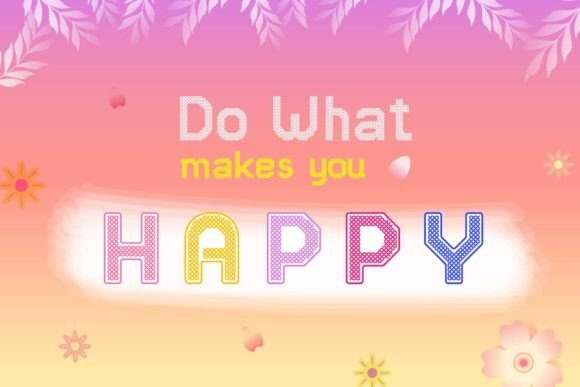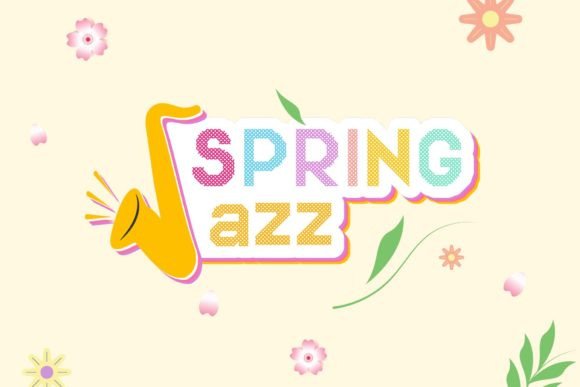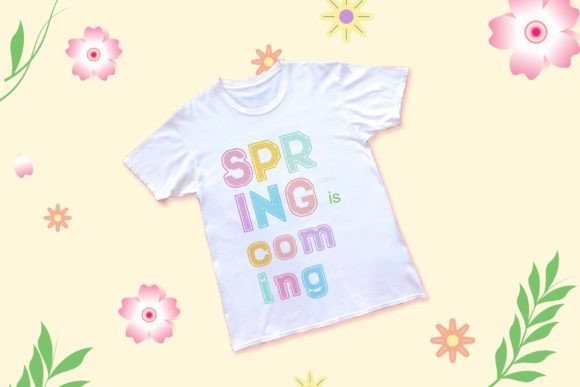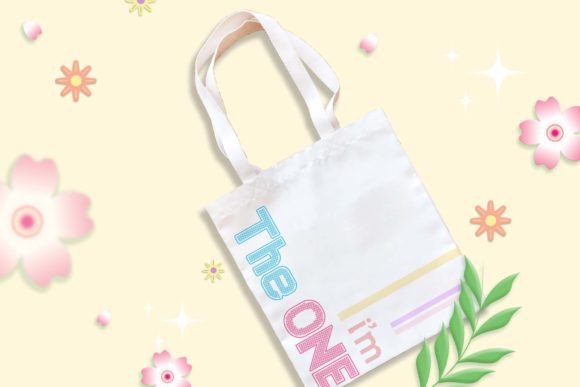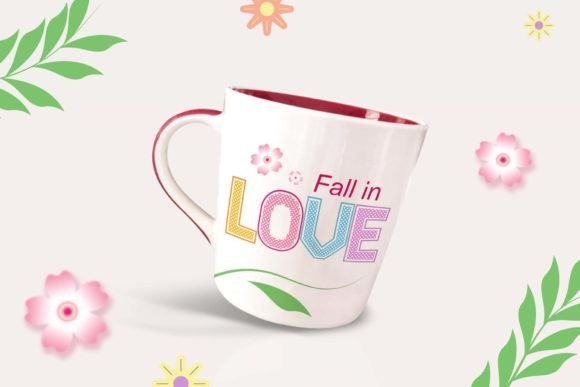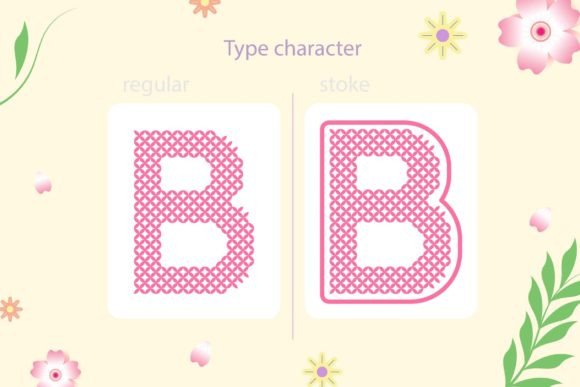
The Florala Font: A Lovely Touch for Your Designs
I’ll never forget the time I was working on a spring-themed craft project, and I just couldn’t find the right font to match my design. I wanted something that would add a touch of whimsy and playfulness, but still be elegant and refined. That’s when I stumbled upon the Florala font, and it instantly became my go-to choice. In this article, I’ll share my experience with this beautiful font, and show you how to make the most of its features.
An Honest Review of Florala Font
- ✨ The Florala font is a regular and stroke lettered decorative font, which makes it perfect for a wide range of design projects, from cartoon-related designs to spring crafts.
- ✅ The font has a lovely, elegant feel to it, with a subtle flair that adds a touch of sophistication to any design.
- 💕 I love how versatile the font is – it can be used for both digital and print projects, and it looks great in a variety of colors and textures.
While the Florala font is amazing, there are a few things to keep in mind:
- ⚠️ The font can be a bit tricky to read at small sizes, so it’s best to use it for headlines or titles rather than body text.
- 🤔 Some of the stroke letters can be a bit inconsistent, which may affect the overall flow of the text.
The Backstory of Florala Font
The Florala font was designed by a team of creatives who wanted to create a font that would capture the essence of spring and new beginnings. Inspired by the beauty of flowers and the playfulness of childhood, they crafted a font that would be both elegant and whimsical. The result is a font that is perfect for designers, crafters, and creative hobbyists who want to add a touch of loveliness to their designs.
| Font Name | Florala Font |
Q: What is the Florala font best used for?
A: The Florala font is best used for designs that require a touch of elegance and whimsy, such as spring-themed crafts, cartoon-related designs, and other creative projects.